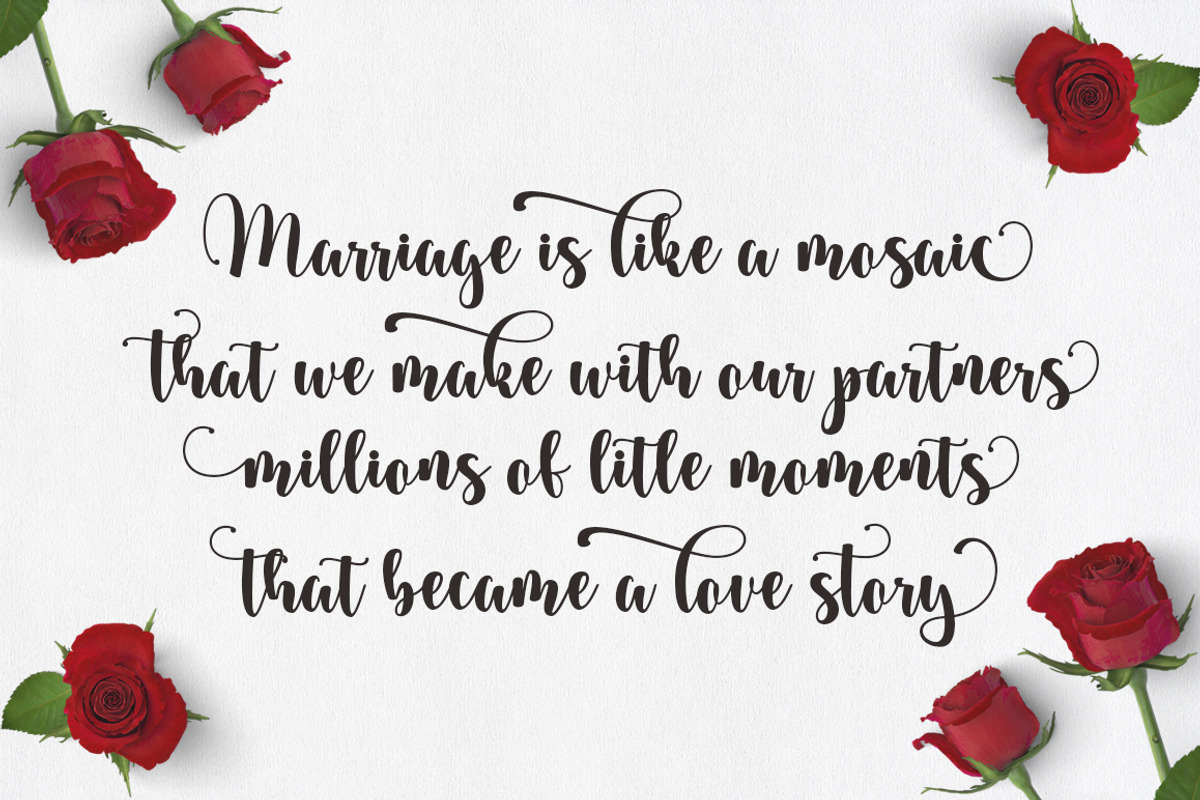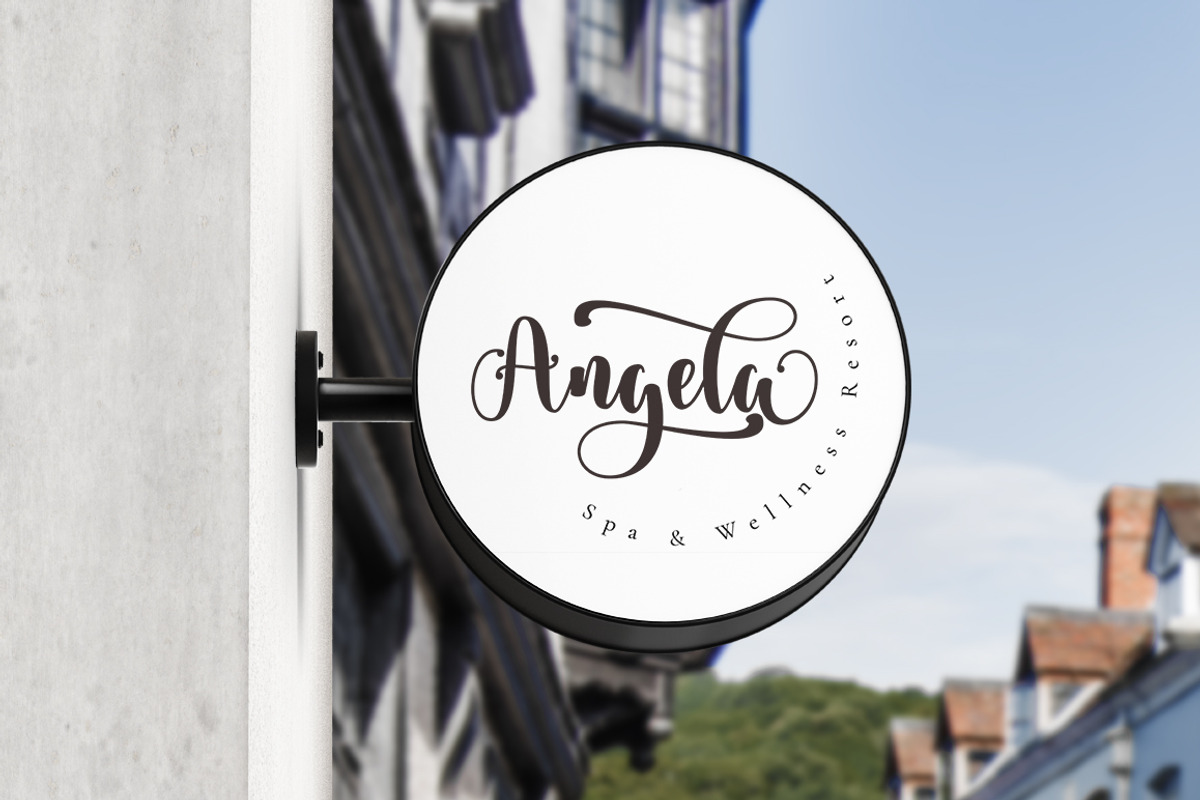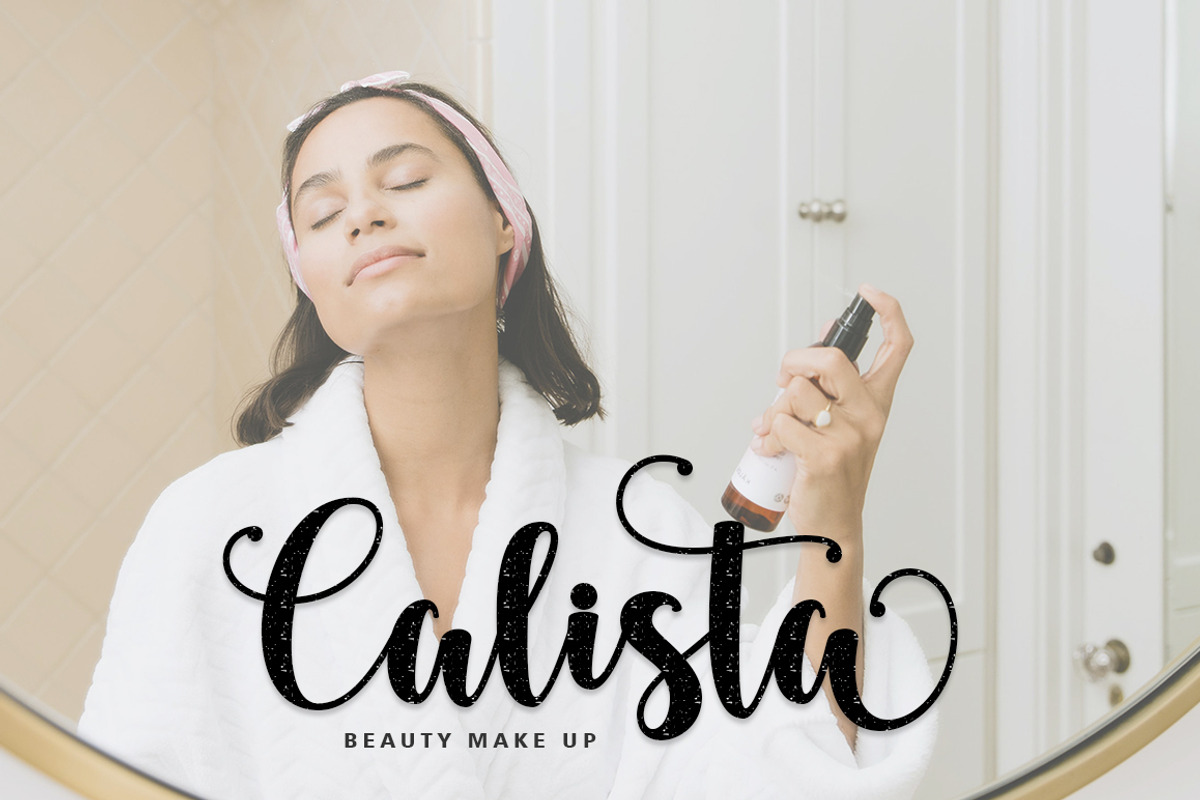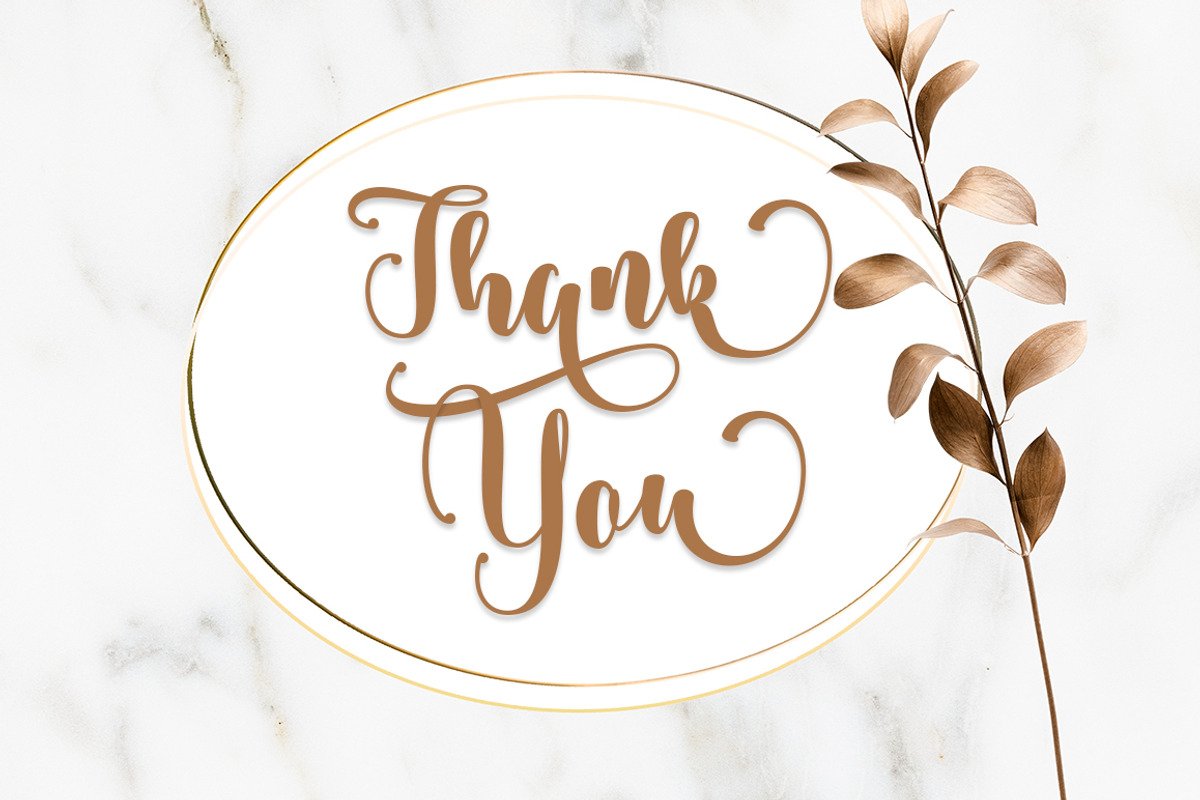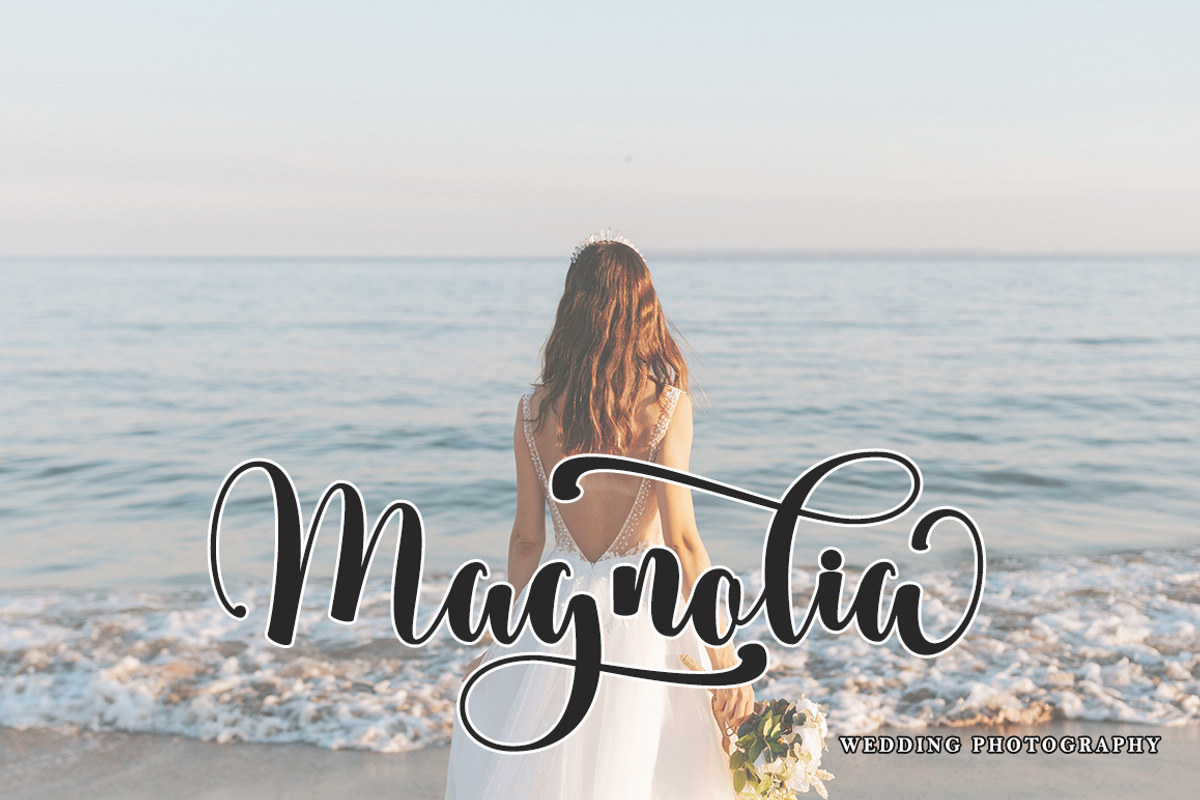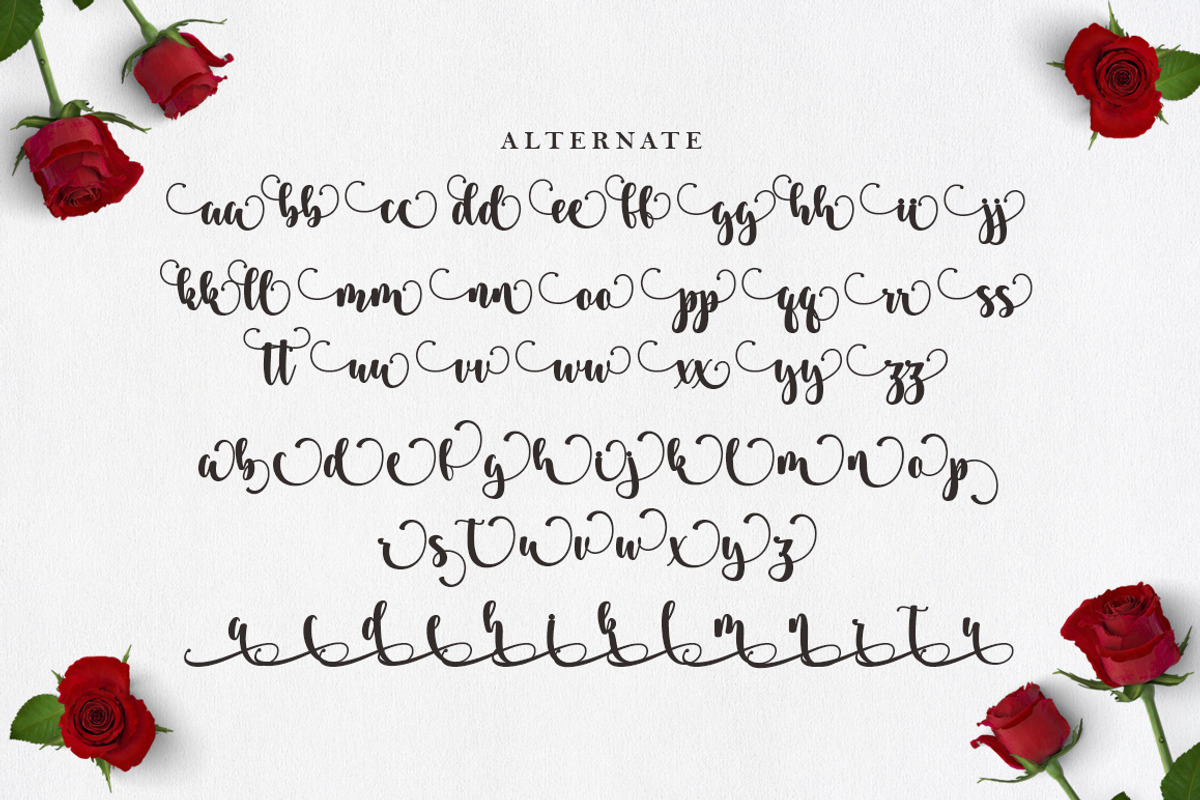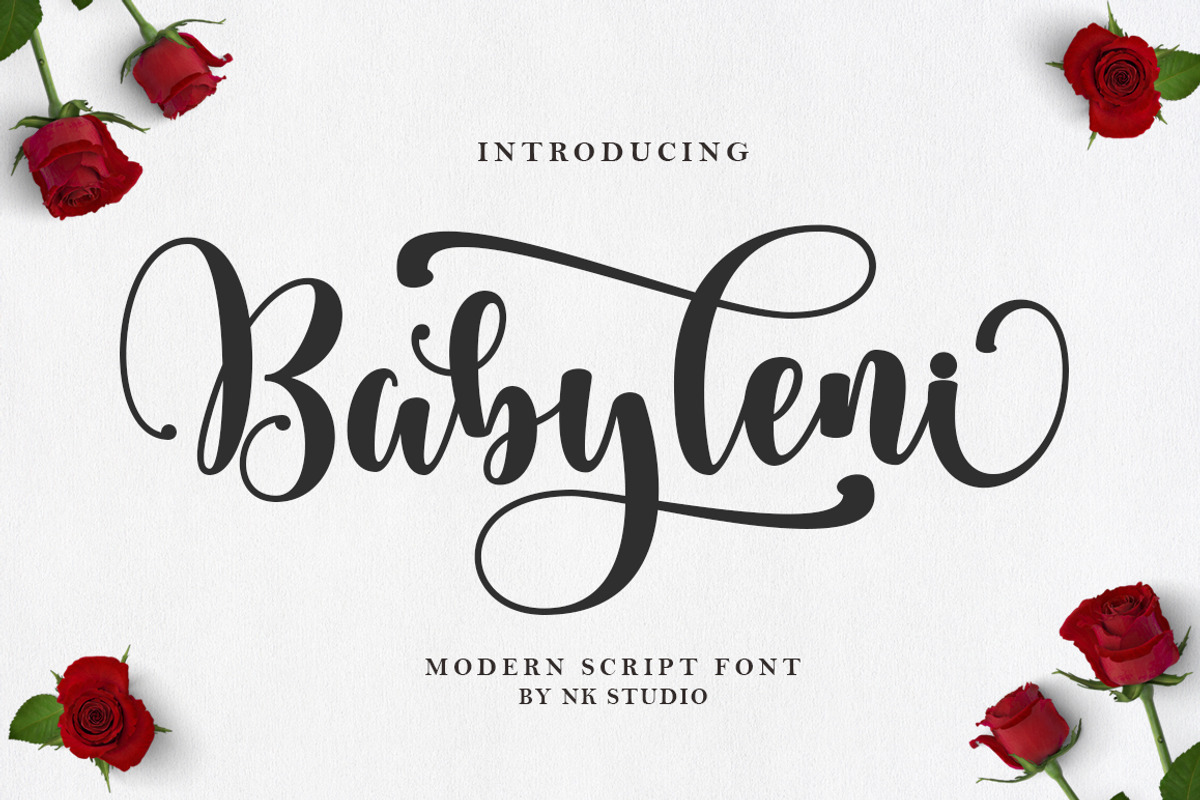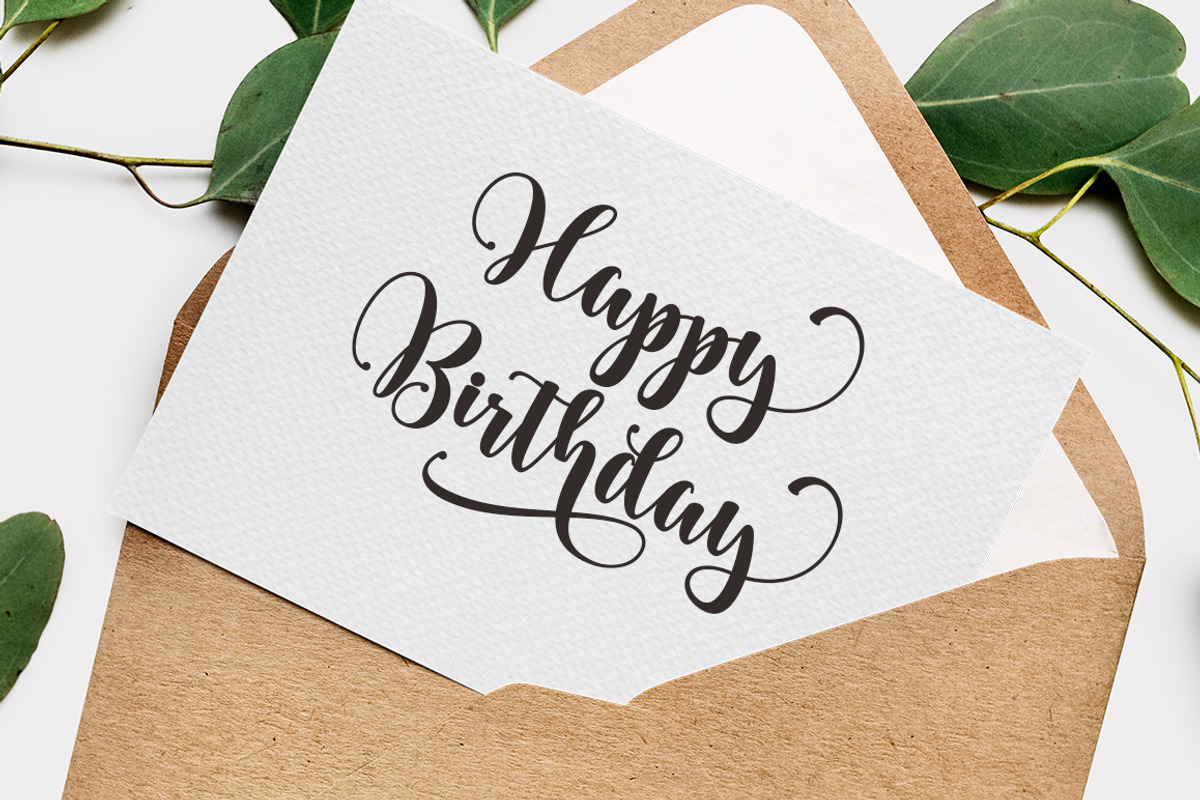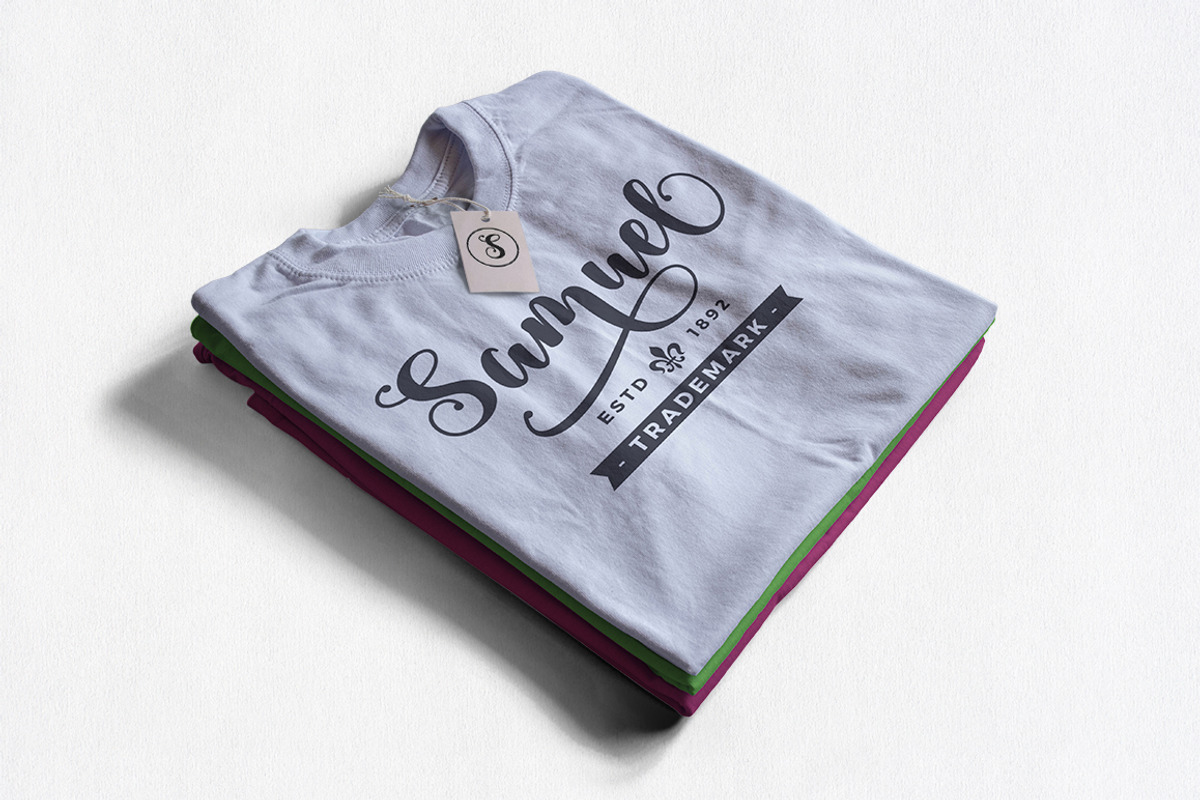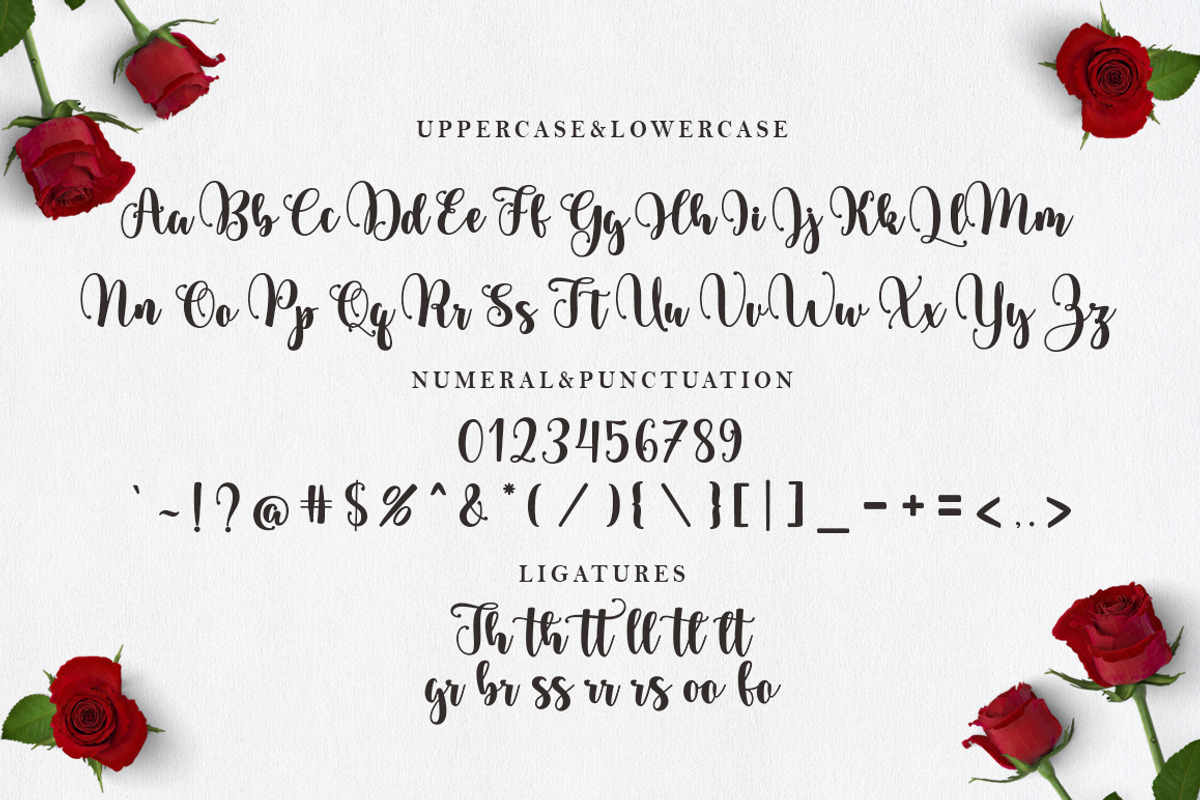
Baby Leni
Baby Leni with beautiful handwriting style. Equipped with 300+ glyphs. Baby Leni is perfect for branding projects, home appliance design, product packaging, use in business cards, invitation cards, etc. Just like a stylish text overlay to a background image or anything else that needs a touch of elegance.